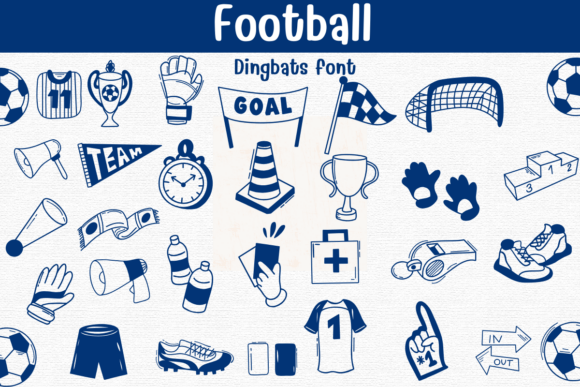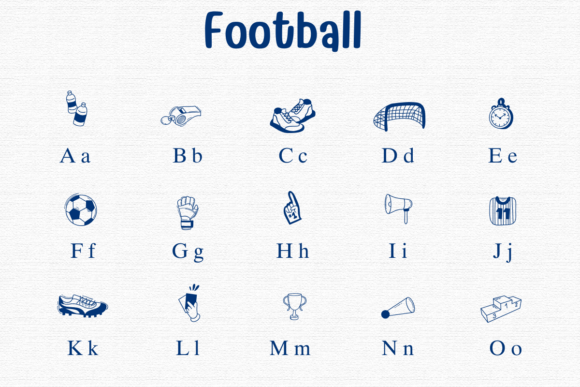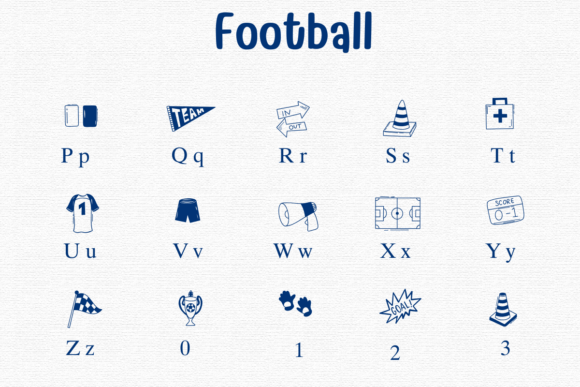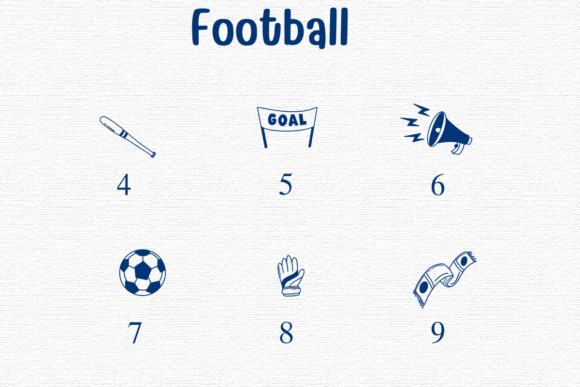
The Perfect Kick-Off for Your Design Projects
Have you ever been browsing through your favorite font store, scrolling through page after page of dingbats and icons, when suddenly you stumble upon a font that speaks directly to your soul? For designers who love sports, especially football, this moment is a reality with the Football Doodle Font.
This athletic dingbats font is a treasure trove of football-themed symbols, perfect for adding a touch of personality to bags, cards, invitations, and more. Whether you’re a professional designer or a hobbyist, Football Doodle Font is an invaluable asset in your creative toolkit.
With its unique and playful style, Football Doodle Font is a must-have for designers who want to give their projects a fun and sporty twist. So why not give it a try and see how it can elevate your designs to the next level?
Football Doodle Font Key Features
- Unique Characteristics: The font features a playful, doodle-style design with hand-drawn elements, giving it a unique and creative feel.
Review of Football Doodle Font
Overall, I’m impressed with the Football Doodle Font. It’s a unique and playful take on traditional sports fonts. ✨ The font is designed to resemble hand-drawn doodles, which adds a fun and casual touch to any project. It’s perfect for creating a lighthearted and approachable atmosphere, making it ideal for sports-related branding, social media, or even kids’ educational materials.
The font is highly customizable, allowing you to adjust the doodle style, size, and color to fit your specific needs. ✨ This level of flexibility makes it a great choice for designers who want to add a personal touch to their projects. Additionally, the font is available in various weights, making it easy to use in both heading and body text.
- ⚠️ Limited legibility in small text sizes: While the font is perfect for headings and large body text, it may become difficult to read in smaller text sizes.
- ⚠️ Limited consistency across different styles: As a hand-drawn font, consistency can be a challenge. Some users may find that the font looks inconsistent when used across different styles or sizes.
Overall, I’m a big fan of the Football Doodle Font. Its unique style and high customizability make it a great choice for designers looking to add a playful touch to their projects. While it may have some limitations, I believe it’s a solid addition to any font collection.
Use Football Doodle Font to add a playful and modern touch to your designs.
1. Sports-themed designs, such as jerseys, posters, and social media graphics.
2. Kids’ party invitations and decorations.
Q: Does Football Doodle Font include any special characters or glyphs?
Yes, Football Doodle Font includes a range of special characters, including ligatures, swashes, and alternates. These characters can be accessed through the font’s character map or by using OpenType features in design software that supports them.